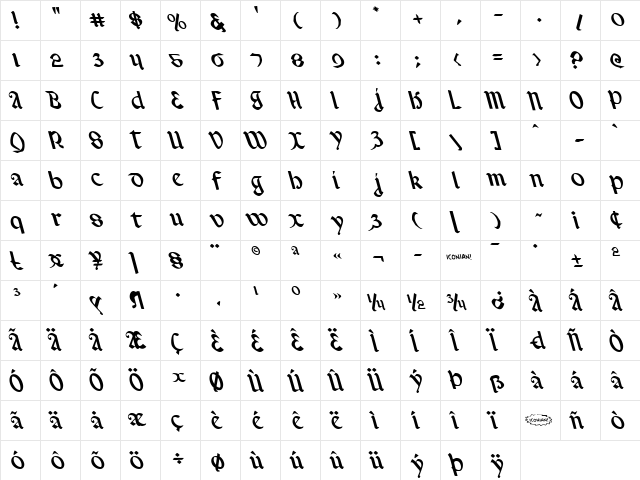
Valerius Leftalic Italic
Design Context for Valerius Leftalic Typeface
Valerius Leftalic takes a measured approach to typography — its balanced proportions and neutral character make it a reliable workhorse for both digital and print work. The dynamic lean of this cut emphasises speed and emphasis in any layout.